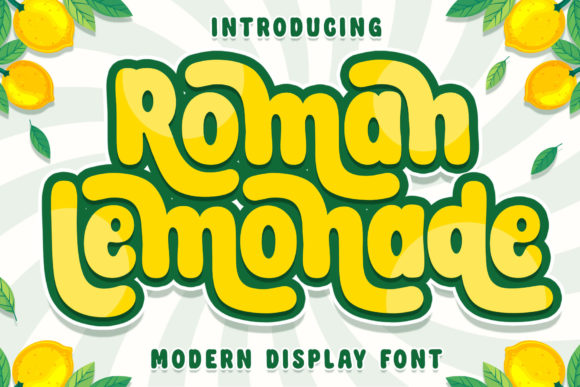
Introducing Roman Lemonade Font, the ultimate choice for digital display! This captivating and eye-catching font, created by Hoperative Design, is the perfect tool to elevate your designs and make them truly stand out.
With its bold and thick style, Roman Lemonade Font brings a sense of fun and playfulness to any design. Whether you're working on branding projects or packaging designs, this font will add a touch of creativity and uniqueness that will leave a lasting impression.
One of the standout features of Roman Lemonade Font is its PUA encoding. This means that you have access to a wide range of amazing glyphs and ligatures, making it incredibly easy to create stunning and customized typography. Say goodbye to limitations and unleash your creativity with this font!
When it comes to digital display, Roman Lemonade Font truly shines. Its clean and clear letterforms ensure optimal legibility, even at smaller sizes. Whether you're creating banners, websites, or social media graphics, this font will make your message pop and grab the attention of your audience.
But Roman Lemonade Font is not just about functionality. Its personality and charm add a touch of emotion to your designs. Let this font tell a story, evoke a feeling, and captivate your audience. It's the perfect choice for anyone looking to add a unique and memorable touch to their projects.